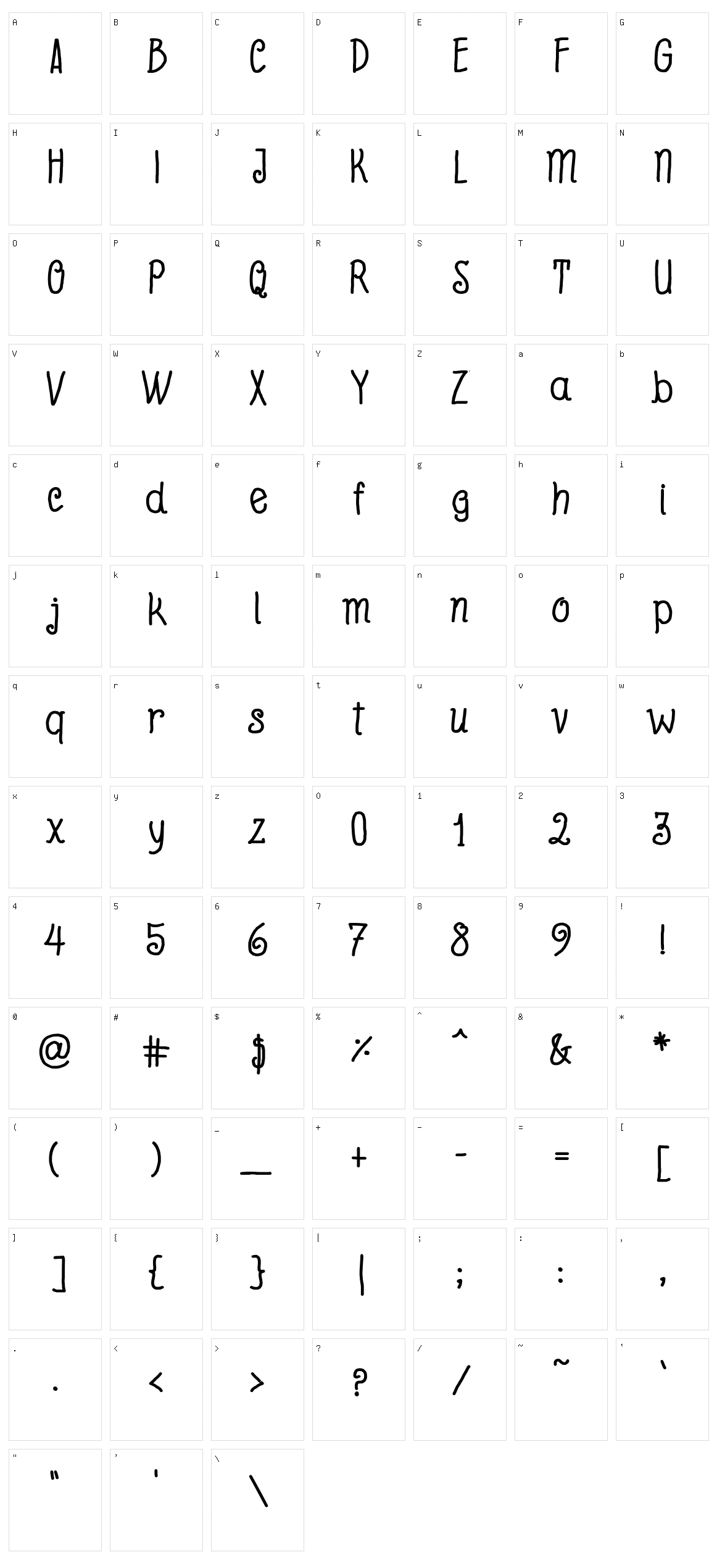
The free font Beyond Blackboard is carefully designed by Galdino Otten Fonts, showcasing a thoughtful balance of creativity and usability and falls under the Script font style. When you download the ZIP file, it contains only 944.24 KB of font files, making it lightweight and quick to download. Please review the license details below to understand permitted usage and distribution rights. If license information is not available, we recommend using this font for personal projects only or contacting the author directly for commercial usage permissions.